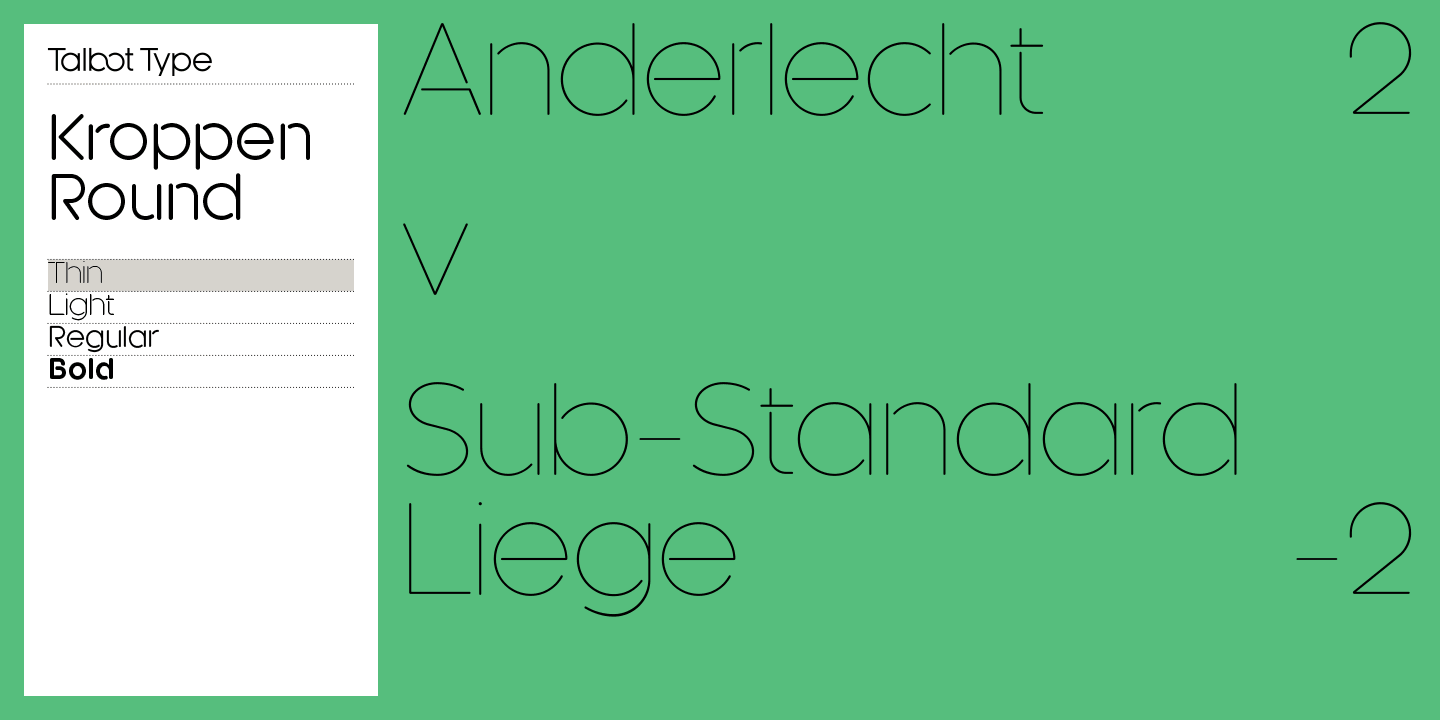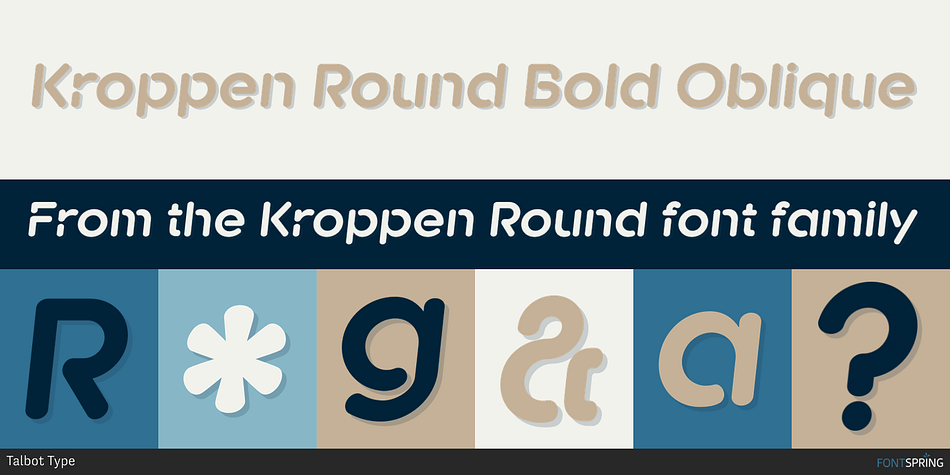
Kroppen Round is a sans serif and stencil font family. This typeface has eight styles and was published by Talbot Type.
Kroppen Round Bold Oblique
Kroppen Round is a geometric, stencil-style font based on Talbot Type Kaleko Round, and is available in four weights. Kroppen is not strictly a stencil font given that several characters, notably the O, are not stencilled. The design has more to do with achieving each character from a single stroke or series of single strokes, resulting in a clean, minimal look.
Kroppen Round features an extended character set to include accented characters for additional Central European languages.